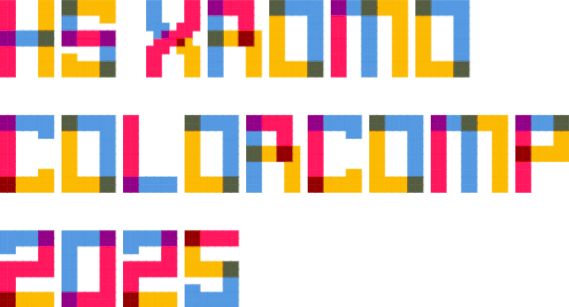
• This is my first colo(u)red font, and my first entry for the ColorComp.
"Xromo" comes from the Greek root "chromo-," meaning colo(u)r, but with the "ch" x-changed with an "x".
Nice, very pleasing colors!